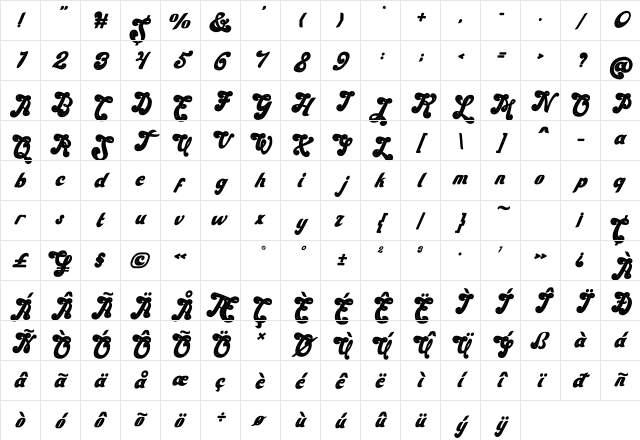
Jhonie Screw Texture Free Font
Jhonie Screw Texture
Style: Texture
Foundry: Putracetol Studio, Karanganyar.
Designer: Putra Novembria Candra Kusuma
Jhonie Screw Family
Jhonie Screw Texture
Design Context for Jhonie Screw
Jhonie Screw embraces imperfection - its rough, textured character adds raw authenticity to designs that want to feel lived-in and unconventional.
Pro Tip: Use Jhonie Screw at larger sizes where the texture and irregularity of each letterform can be clearly seen - it loses its character at small sizes.